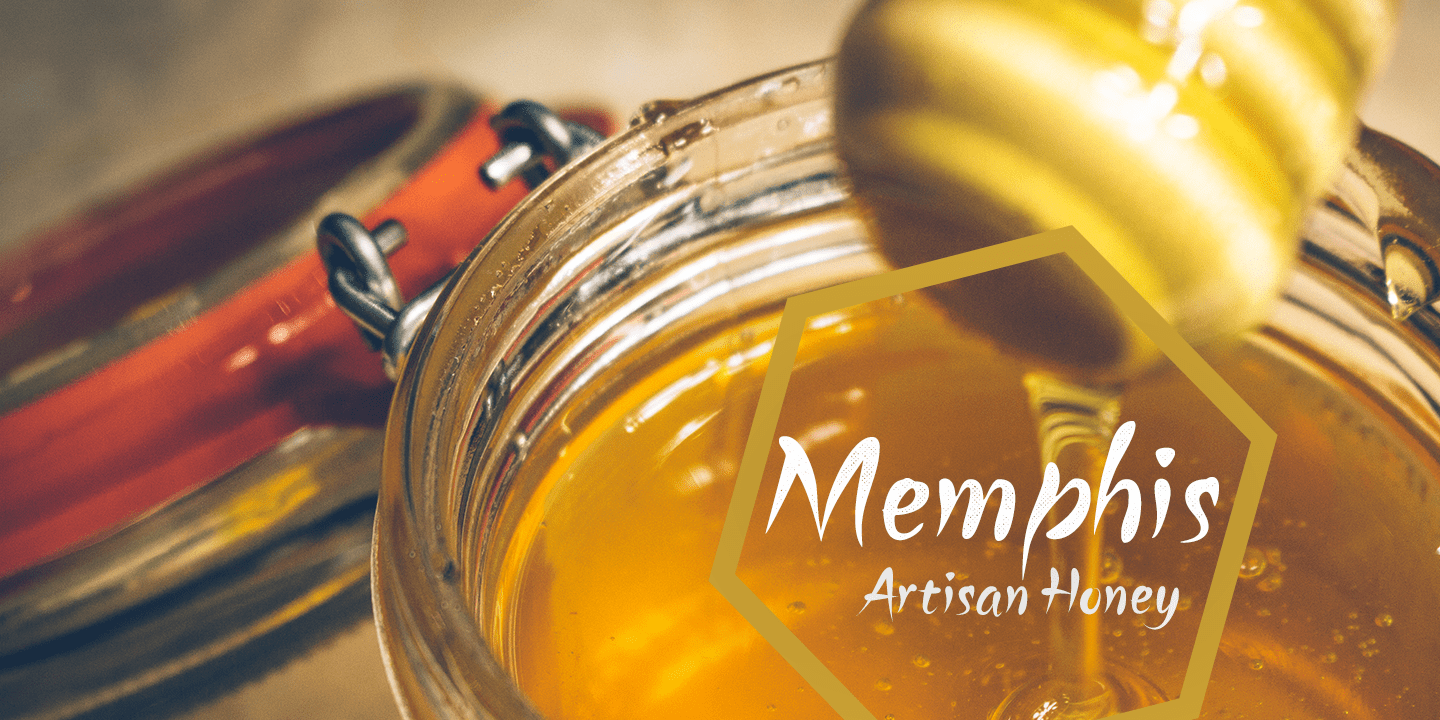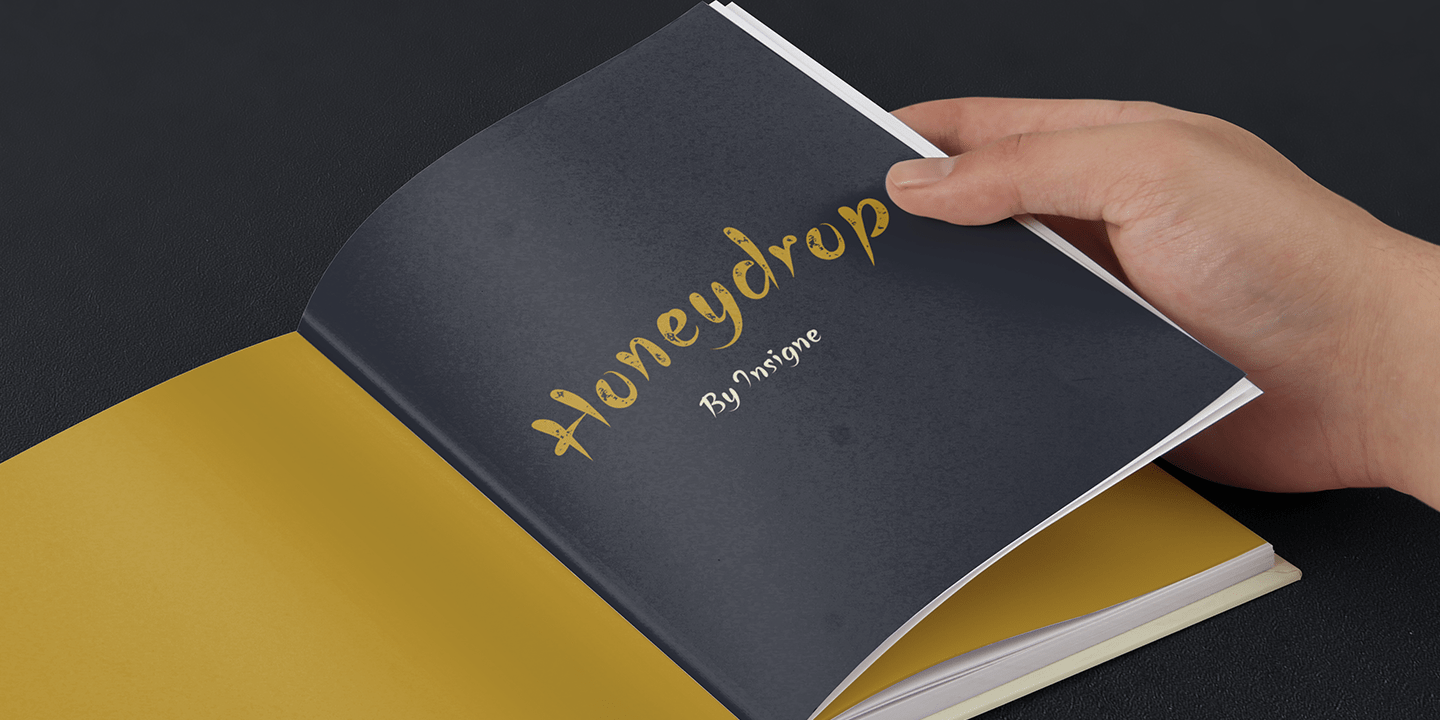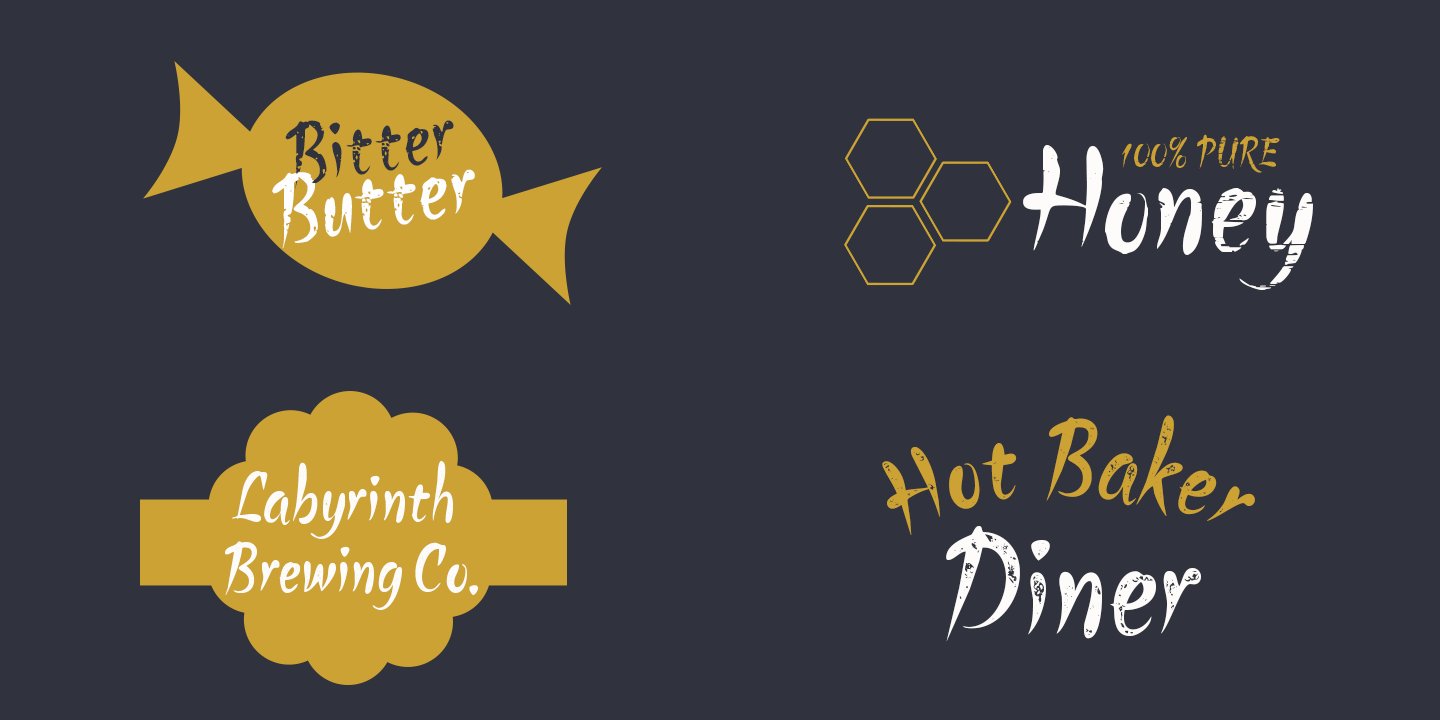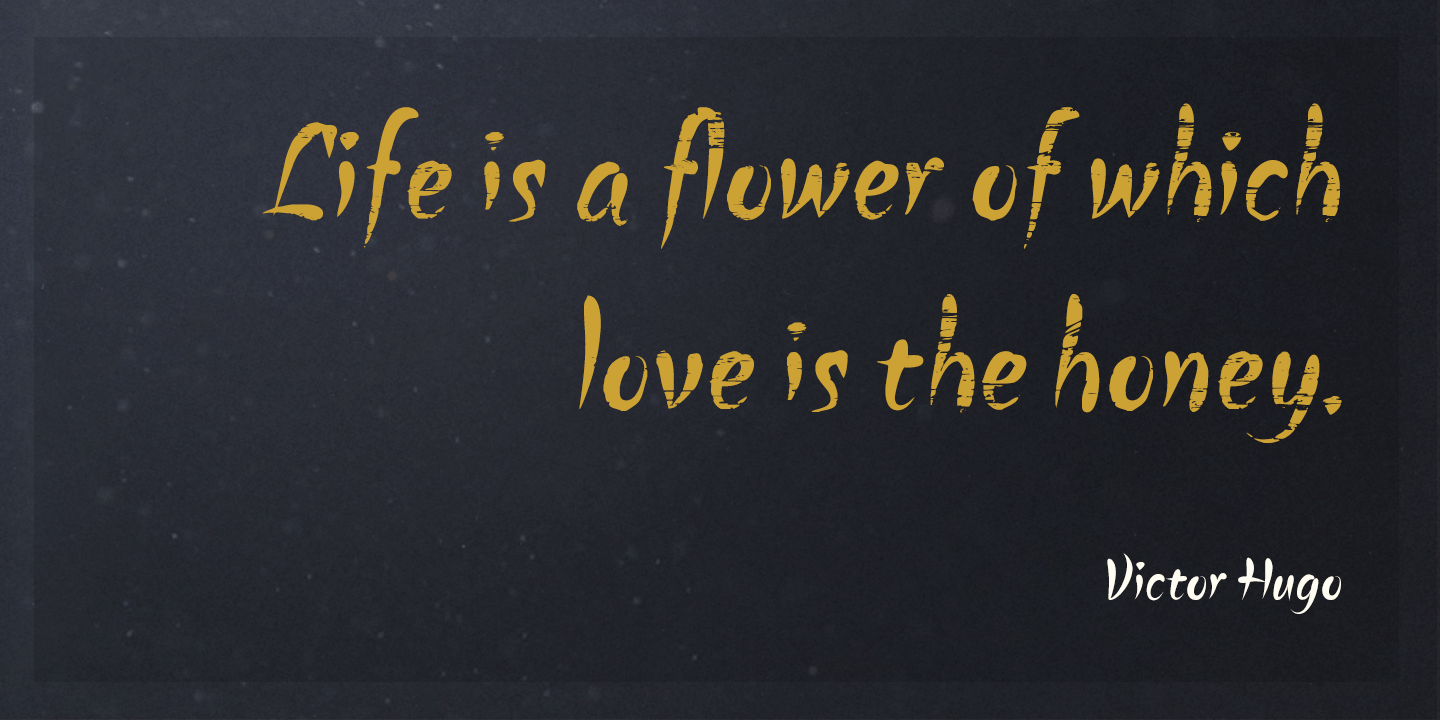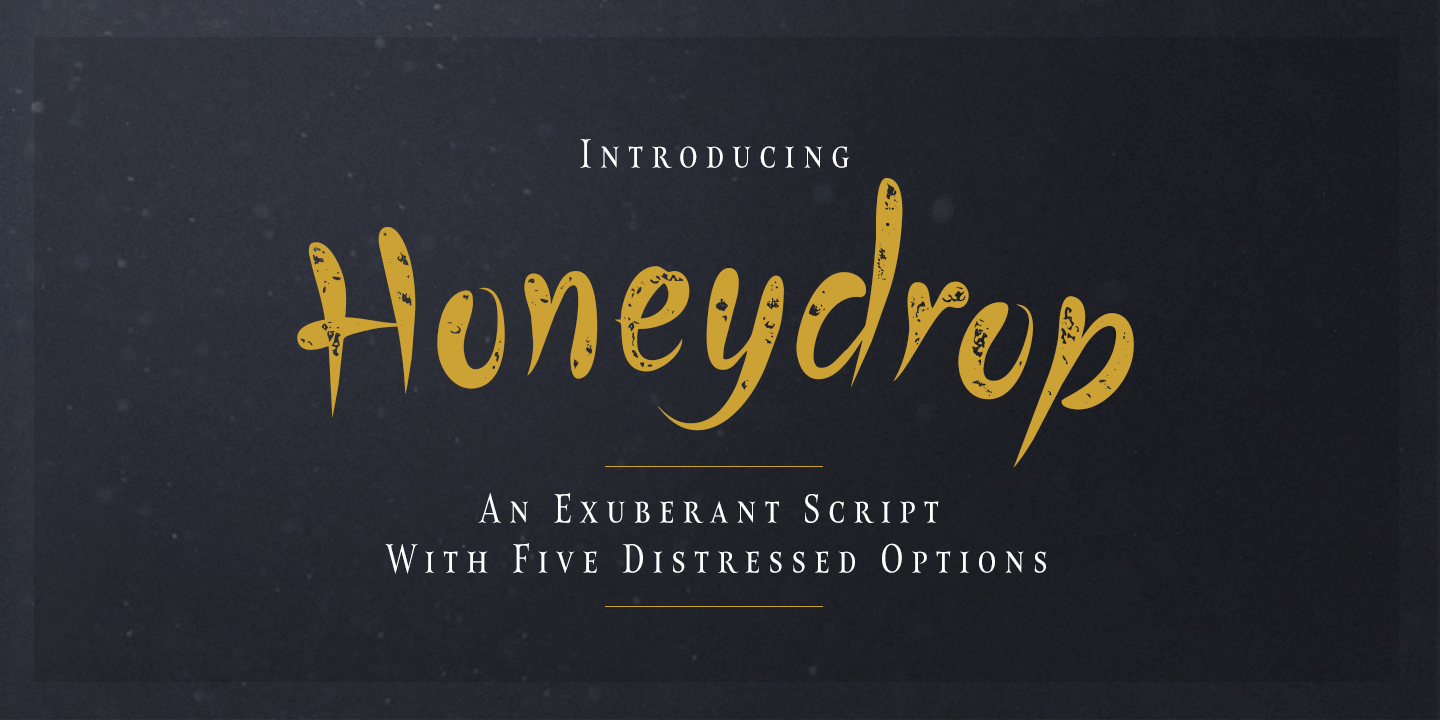
About Honeydrop
Honeydrop is a script that mimics the action of a heavily-laden inky pointed brush, dancing across the page . Designed by Jeremy Dooley, its unique form is great for branding and packaging, especially for all-natural food items. The typeface also has…